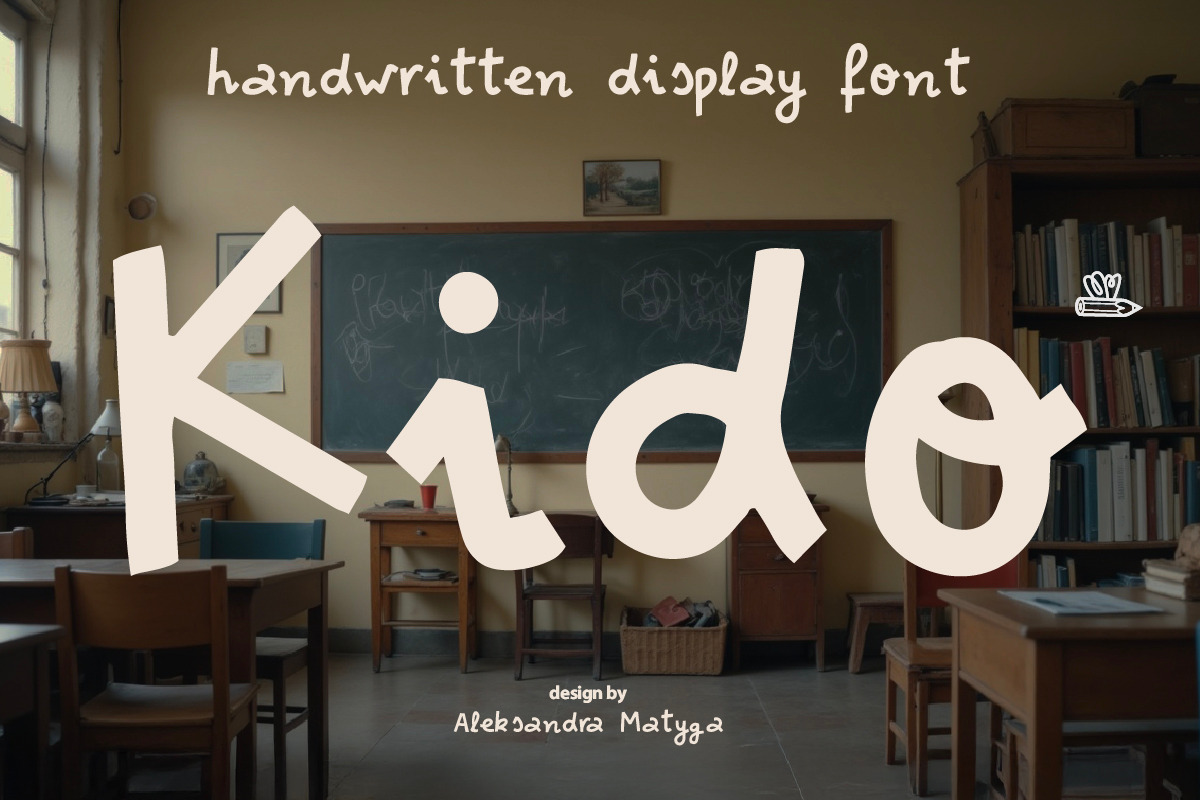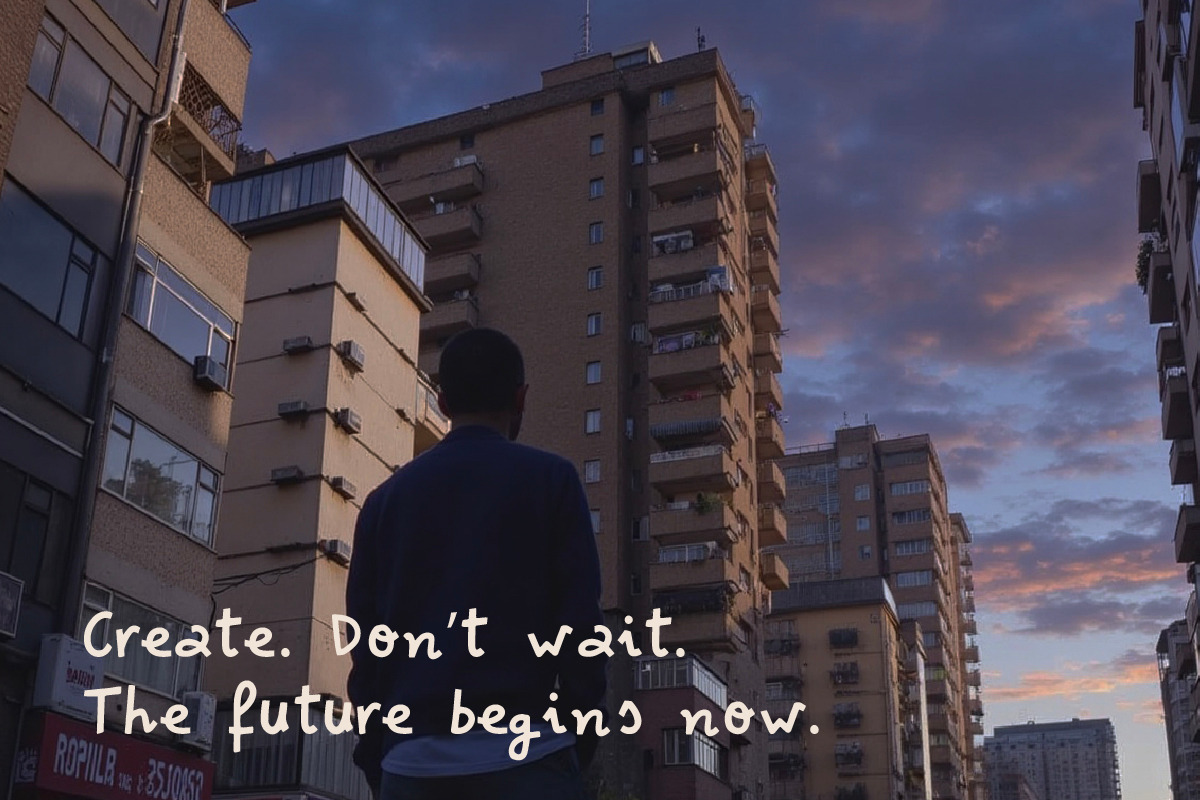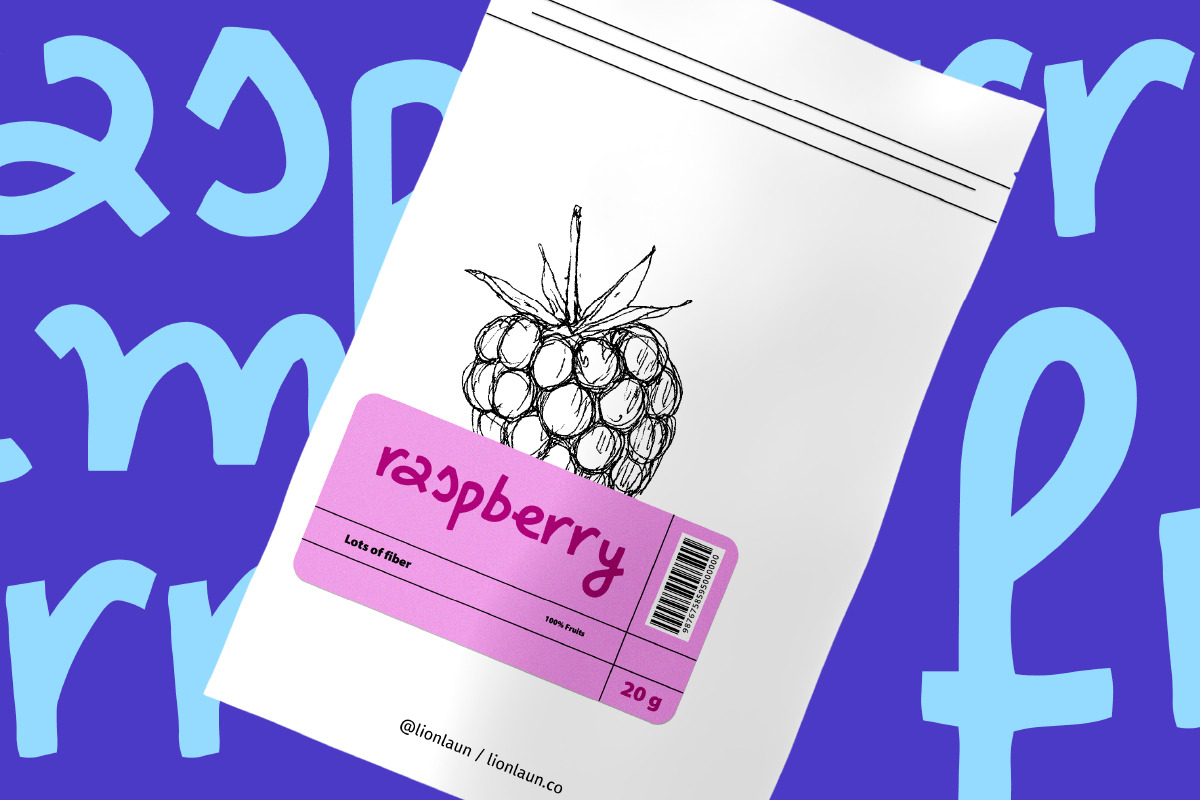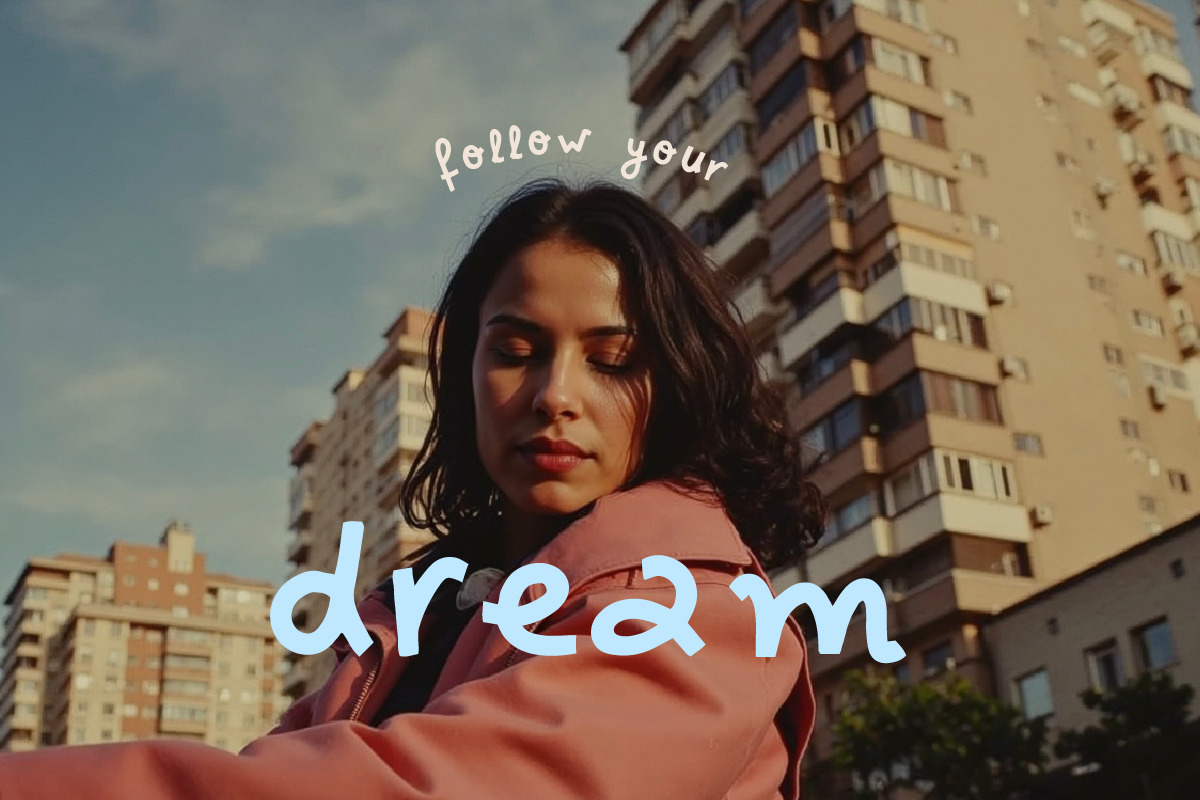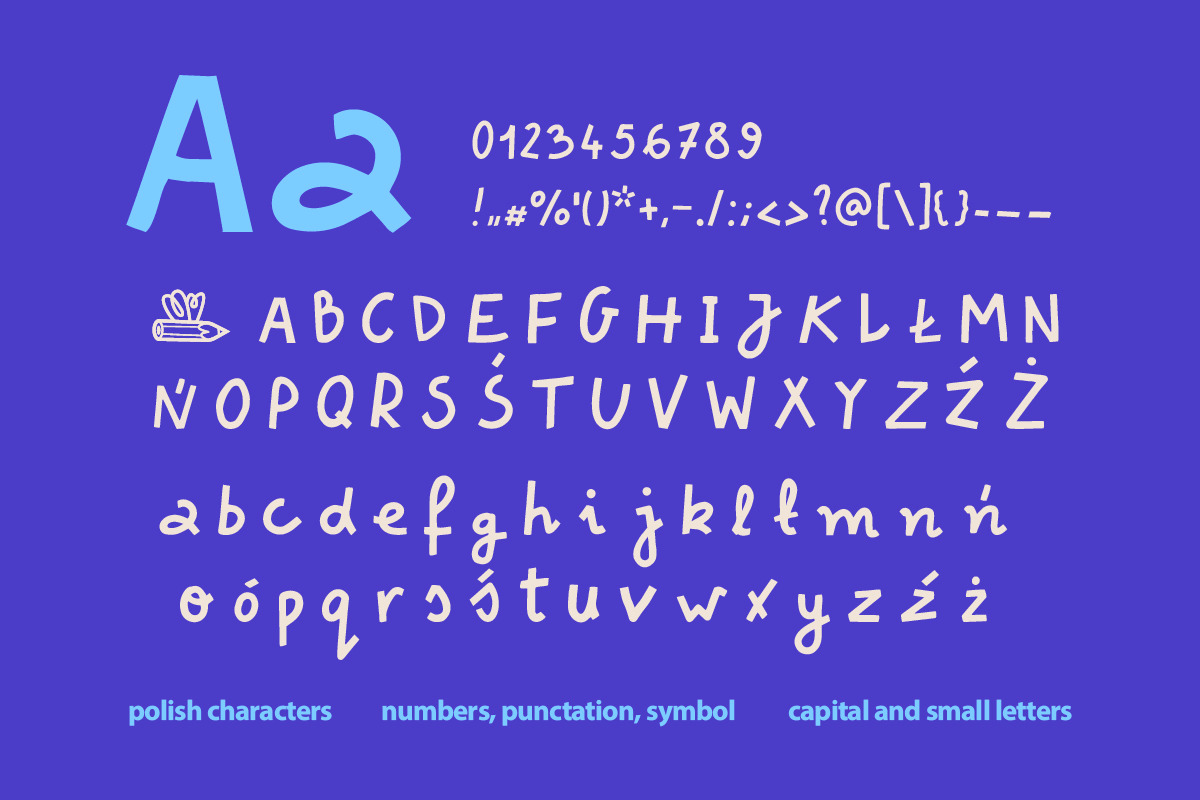
Kido Handwritten Font
Kido – Playful Handwritten Font with Polish Characters
Kido is a charming and playful handwritten typeface designed to bring a touch of fun and creativity to your projects. With its smooth curves and organic, childlike flow, it’s perfect for branding, posters, packaging, social media graphics, and anything that needs a joyful, personal touch.
This font comes with full support for Polish diacritics and other multilingual characters, making it a versatile choice for international designs. Its handcrafted feel adds a warm, authentic vibe that pairs beautifully with modern vintage, whimsical, or soft aesthetic themes.
Handwritten style with smooth, rounded lines
Ideal for kids’ designs, branding, quotes, invitations, and packaging
Includes full Polish characters and extended Latin support
High readability in both display and body text
Carefully crafted for a natural, friendly appearance
Perfect for designers looking for a fun, soft, rounded, and organic handwritten font that combines personality with versatilit